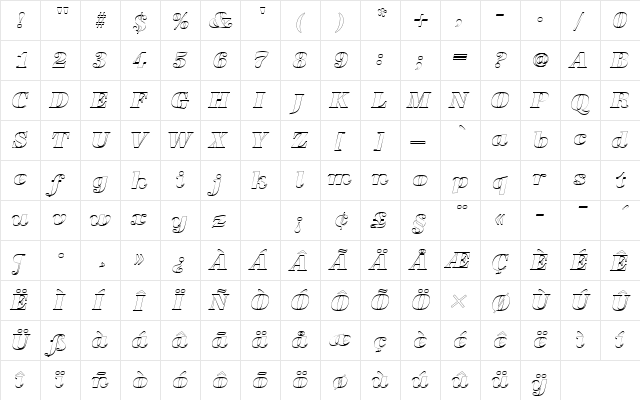
URWAntiquaTUltBolItaOu1 Regular Font Preview
URWAntiquaTUltBolItaOu1 Regular
URWAntiquaTUltBolItaOu1 Regular Font Details
Design Context for URWAntiquaTUltBolItaOu1 Typeface
URWAntiquaTUltBolItaOu1 offers clean, dependable letterforms without strong stylistic allegiance, making it a practical choice for designers who need flexibility.